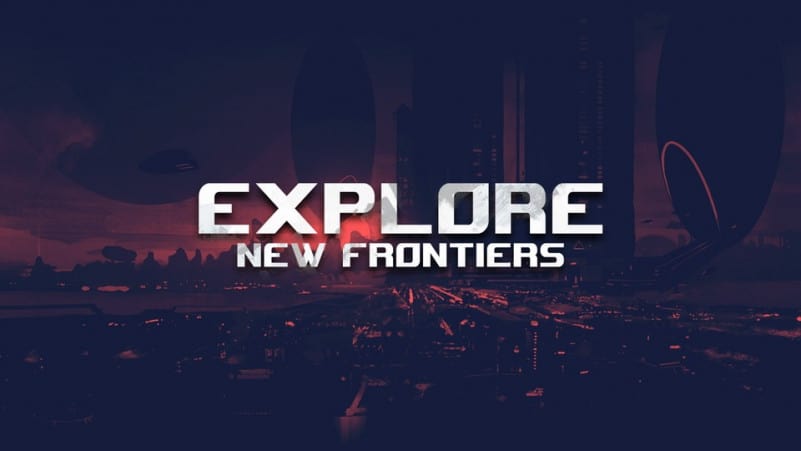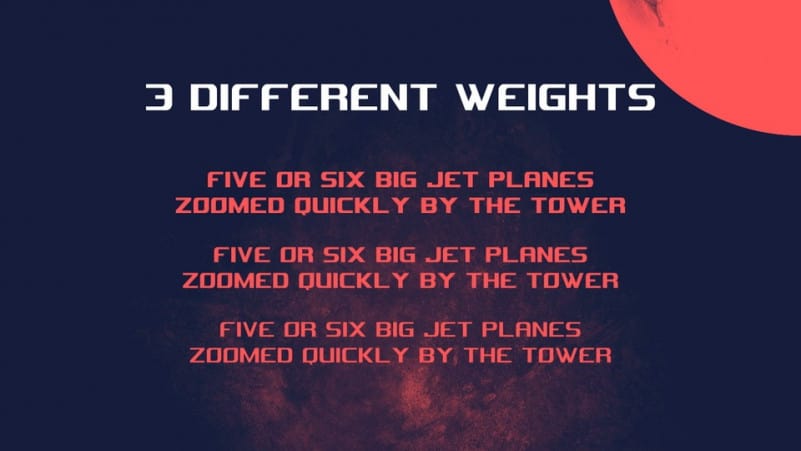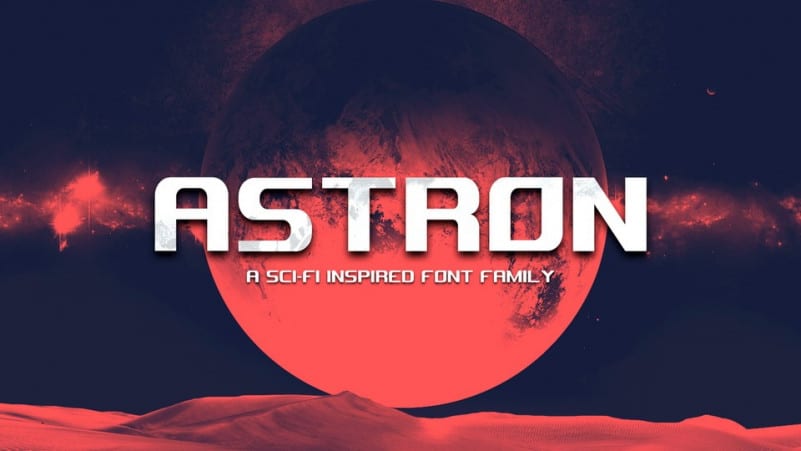
Astron Display Font is a sans display typeface with strong and challenging nuances. It’s designed and shared by Mason Mulcahy. This Typeface is a sans serif font family inspired by text found in science fiction. It includes 3 different weights, contains with all caps charactes. This font perfectly fits for posters, headlines, logos, branding and more.